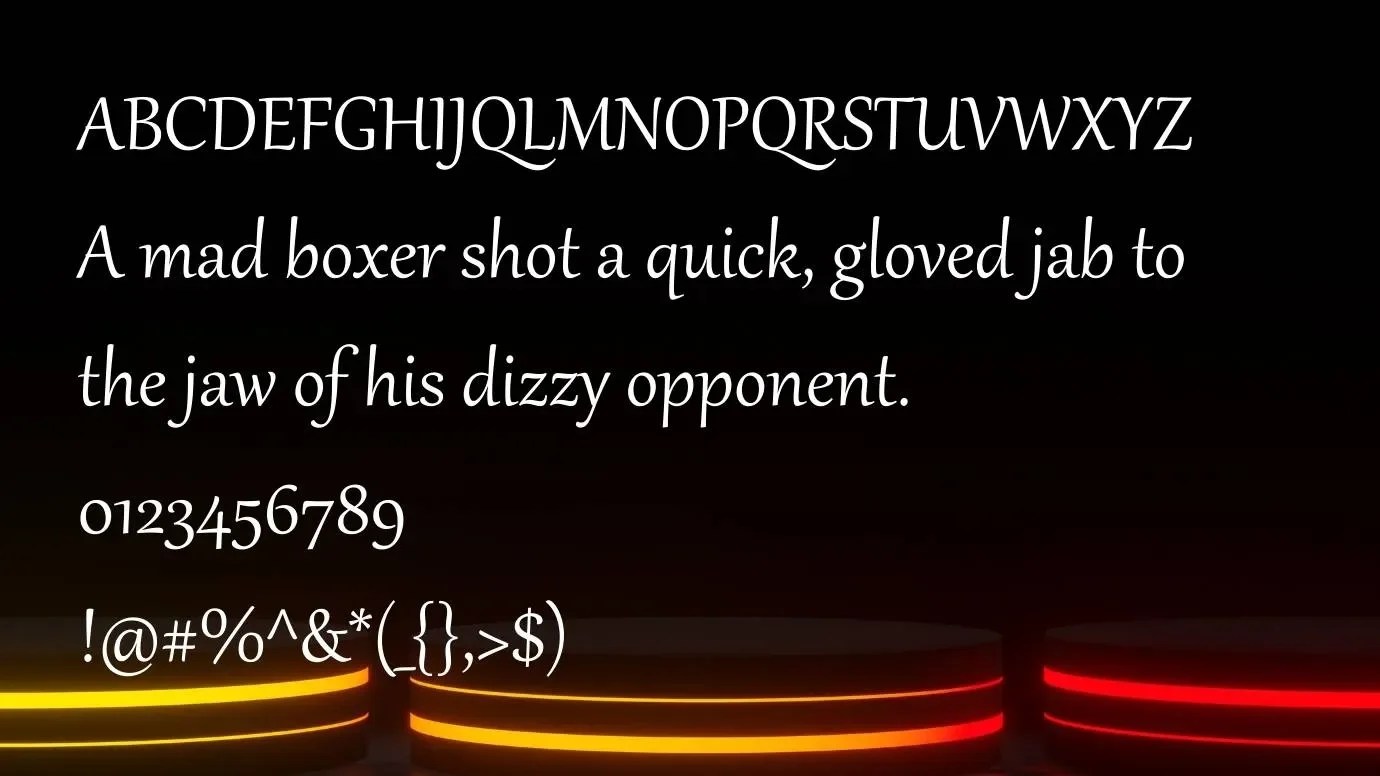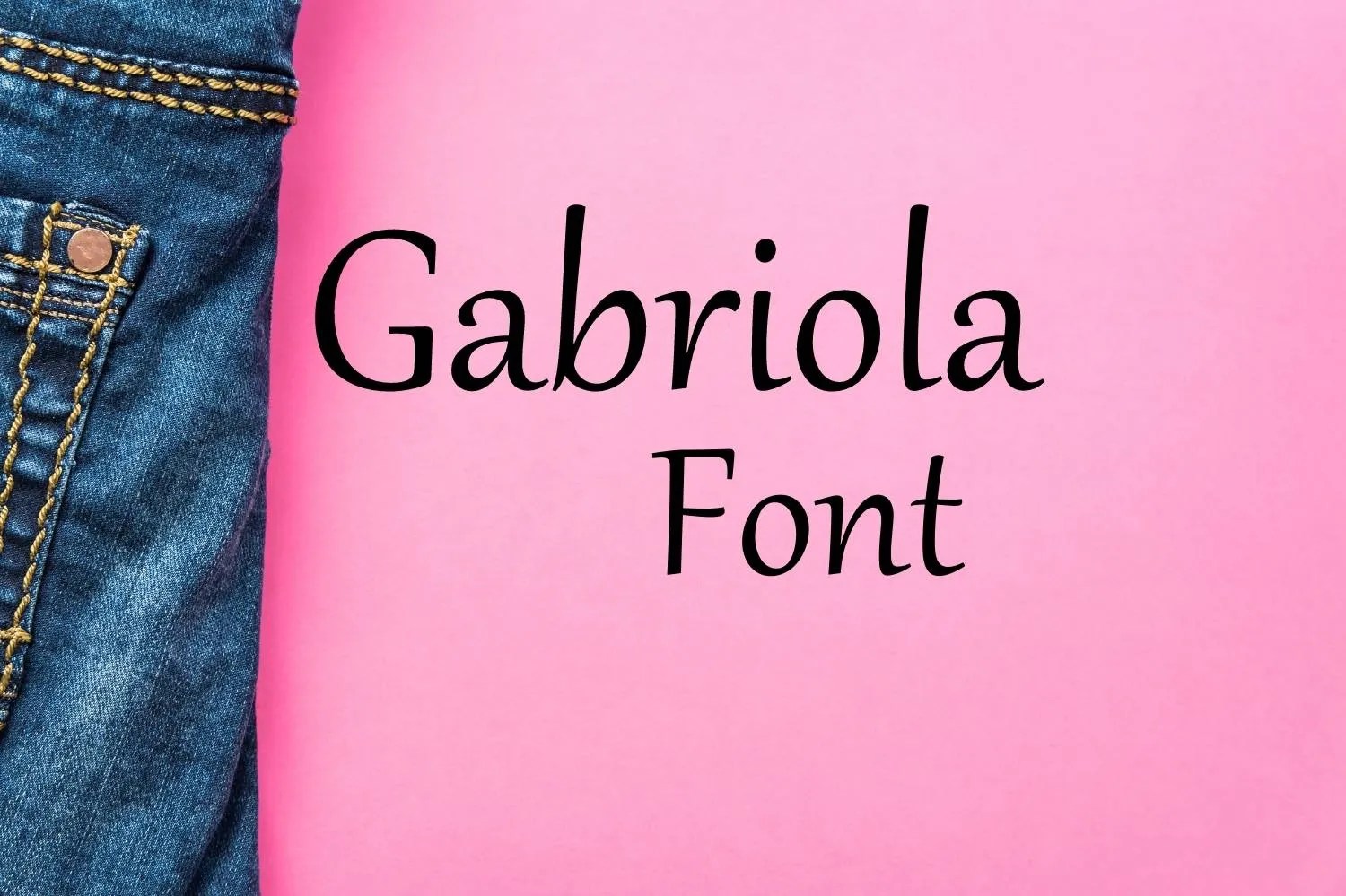
Gabriola Script Font . See how gabriola regular looks with your custom text!. Gabriola regular font by dafontfree. Experience the gabriola regular font on windows, mac, and linux with our instant preview feature. File script name gabriola.ttf download free for personal use. You can download the gabriola font to your computer or use it on your. Gabriola font family designed by john hudson has a total of 1 different styles. With the combination of the sharp and artistic design with the open types features, you can easily get an idea of this font family by checking.
Experience the gabriola regular font on windows, mac, and linux with our instant preview feature. You can download the gabriola font to your computer or use it on your. With the combination of the sharp and artistic design with the open types features, you can easily get an idea of this font family by checking. File script name gabriola.ttf download free for personal use. See how gabriola regular looks with your custom text!. Gabriola font family designed by john hudson has a total of 1 different styles. Gabriola regular font by dafontfree.
Gabriola Script Font Experience the gabriola regular font on windows, mac, and linux with our instant preview feature. Experience the gabriola regular font on windows, mac, and linux with our instant preview feature. You can download the gabriola font to your computer or use it on your. Gabriola regular font by dafontfree. Gabriola font family designed by john hudson has a total of 1 different styles. File script name gabriola.ttf download free for personal use. With the combination of the sharp and artistic design with the open types features, you can easily get an idea of this font family by checking. See how gabriola regular looks with your custom text!.
Gabriola Fonts Hut Gabriola Script Font Gabriola font family designed by john hudson has a total of 1 different styles. Gabriola regular font by dafontfree. Experience the gabriola regular font on windows, mac, and linux with our instant preview feature. File script name gabriola.ttf download free for personal use. See how gabriola regular looks with your custom text!. With the combination of the sharp and artistic. Gabriola Script Font.
Gabriola Download Fonts Gabriola Script Font Gabriola font family designed by john hudson has a total of 1 different styles. File script name gabriola.ttf download free for personal use. With the combination of the sharp and artistic design with the open types features, you can easily get an idea of this font family by checking. You can download the gabriola font to your computer or use. Gabriola Script Font.
Download free Gabriola font, free Gabriola.ttf Regular font for Windows Gabriola Script Font You can download the gabriola font to your computer or use it on your. Gabriola regular font by dafontfree. See how gabriola regular looks with your custom text!. File script name gabriola.ttf download free for personal use. Experience the gabriola regular font on windows, mac, and linux with our instant preview feature. With the combination of the sharp and artistic. Gabriola Script Font.
Gabriola Free Font passathoughts Gabriola Script Font You can download the gabriola font to your computer or use it on your. See how gabriola regular looks with your custom text!. Experience the gabriola regular font on windows, mac, and linux with our instant preview feature. Gabriola font family designed by john hudson has a total of 1 different styles. With the combination of the sharp and artistic. Gabriola Script Font.
Gabriola Font Free Download Gabriola Script Font Gabriola font family designed by john hudson has a total of 1 different styles. You can download the gabriola font to your computer or use it on your. See how gabriola regular looks with your custom text!. Experience the gabriola regular font on windows, mac, and linux with our instant preview feature. With the combination of the sharp and artistic. Gabriola Script Font.
Gabriola Font Download For Mac formulabrown Gabriola Script Font You can download the gabriola font to your computer or use it on your. Experience the gabriola regular font on windows, mac, and linux with our instant preview feature. See how gabriola regular looks with your custom text!. File script name gabriola.ttf download free for personal use. Gabriola regular font by dafontfree. With the combination of the sharp and artistic. Gabriola Script Font.
Gabriola Font Fontzaa Fonts Free Download Gabriola Script Font With the combination of the sharp and artistic design with the open types features, you can easily get an idea of this font family by checking. Gabriola regular font by dafontfree. Experience the gabriola regular font on windows, mac, and linux with our instant preview feature. File script name gabriola.ttf download free for personal use. Gabriola font family designed by. Gabriola Script Font.
Gabriola Regular Download For Free, View Sample Text, Rating And More Gabriola Script Font Gabriola regular font by dafontfree. With the combination of the sharp and artistic design with the open types features, you can easily get an idea of this font family by checking. File script name gabriola.ttf download free for personal use. See how gabriola regular looks with your custom text!. Experience the gabriola regular font on windows, mac, and linux with. Gabriola Script Font.
Gabriola Font Family Free Download Fonts Bee Gabriola Script Font Gabriola regular font by dafontfree. Gabriola font family designed by john hudson has a total of 1 different styles. File script name gabriola.ttf download free for personal use. Experience the gabriola regular font on windows, mac, and linux with our instant preview feature. See how gabriola regular looks with your custom text!. With the combination of the sharp and artistic. Gabriola Script Font.